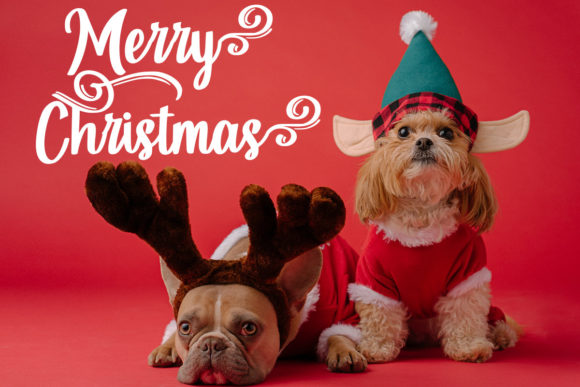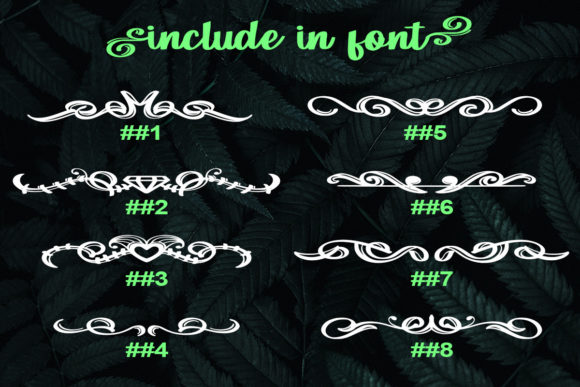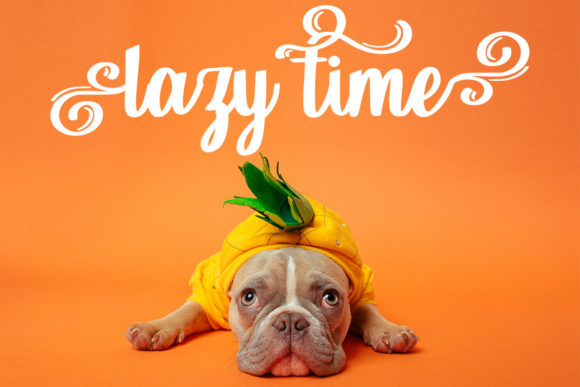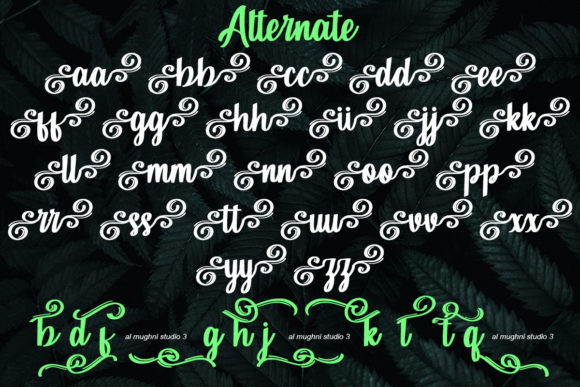
The Emerald Font: A Bold and Beautiful Handwritten Delight
I’ll never forget the time I was working on a wedding invitation project for a client, and I just couldn’t seem to find the perfect font. I wanted something that would add a touch of elegance and whimsy to the design, but everything I tried seemed either too boring or too over-the-top. That’s when I stumbled upon the Emerald font, and it was love at first sight! 💕
With its bold and unique shape, Emerald is a handwritten font that looks stunning on wedding invitations, thank you cards, quotes, greeting cards, logos, business cards, and every other design that needs a handwritten touch. In this article, I’ll share my honest review of the Emerald font, provide a practical guide on how to use it, and explore some similar fonts you might love.
- ✅ Unique and bold handwritten shape that’s perfect for making a statement
- ✅ Works beautifully on both digital and print designs
- ✅ Supports OpenType features, glyphs, and stylistic alternates for added versatility
- ⚠️ Some users may find the font a bit too bold or overpowering for certain designs
- ⚠️ Limited availability of condensed or italic versions, which may limit its use in certain contexts
The Story Behind Emerald: A Designer Inspiration
The Emerald font was designed with one goal in mind: to create a bold, unique, and beautiful handwritten font that would add a touch of elegance and whimsy to any design. Inspired by the natural world and the beauty of handwritten script, the Emerald font is the perfect choice for designers who want to add a personal touch to their work.
| Font Name | Emerald Font |
| Author | Al Mughni Studio3 |
Q: What type of designs is the Emerald font best suited for?
A: The Emerald font is perfect for designs that need a handwritten touch, such as wedding invitations, thank you cards, quotes, greeting cards, logos, and business cards.